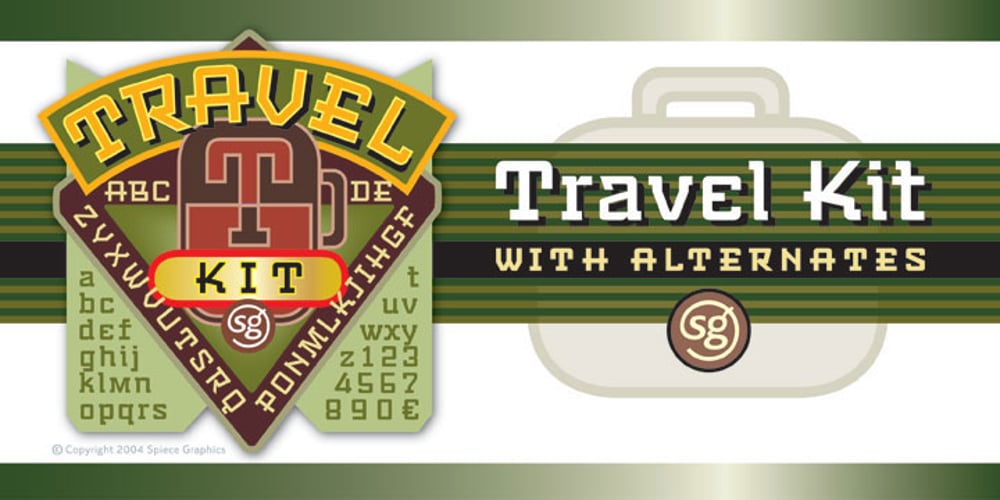
Travel Kit SG Font Family was designed by Jim Spiece and published by Spiece Graphics. Travel Kit SG contains 1 styles and family package options. Here’s an intriguing mixture of 1930s deco and modern tech fashion. Travel Kit Medium is a sturdy semi-serif hybrid with one foot in the past and another in the present. It is slightly low-waisted with extended crossbars on the capital A, E, F, H, K, and P. But the capital B, M, R and X are distinctively contemporary with the E and M repeated as unicase letters in the lowercase. Optional retro characters (notably the unicase e and m) have been provided if you prefer a more traditional overall look – and your software allows access to these characters. Simply find and replace the more modern letters with the older ones. In addition, small caps with even more alternate characters have been included for greater flexibility and convenience. Travel Kit Medium with Alternates is now available in the OpenType format. In addition to small caps, lining figures, oldstyle figures, and petite figures, this expanded OpenType version contains additional stylistic alternates and historical forms. These advanced features work in current versions of Adobe Creative Suite InDesign, Creative Suite Illustrator, and Quark XPress. Check for OpenType advanced feature support in other applications as it gradually becomes available with upgrades.